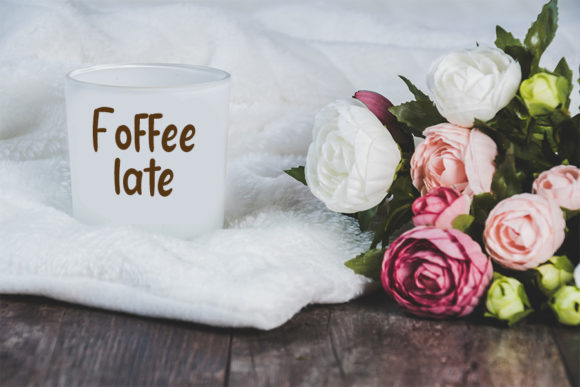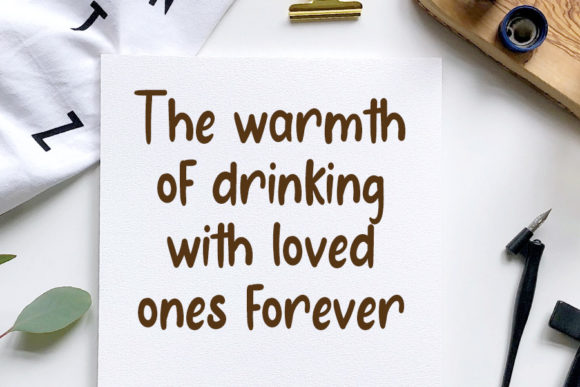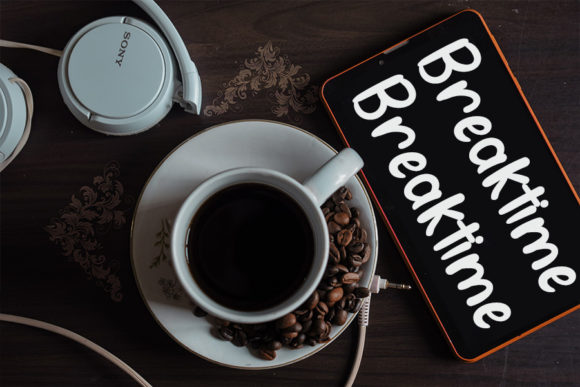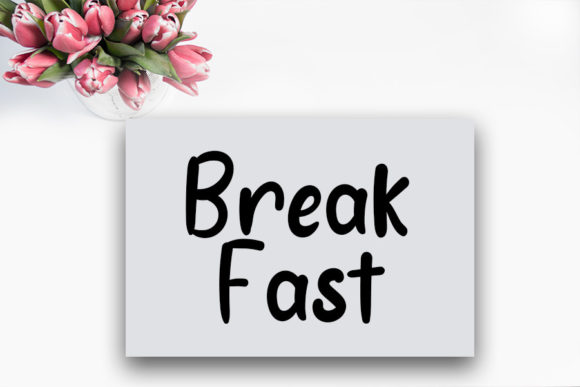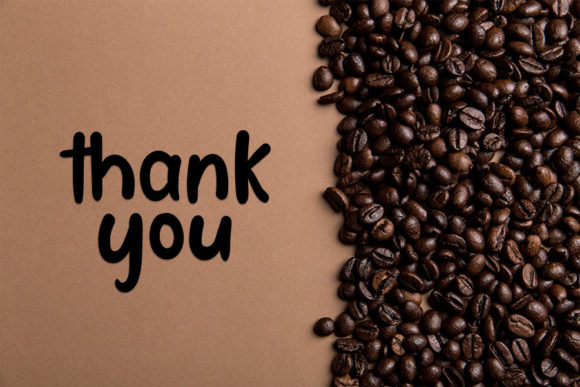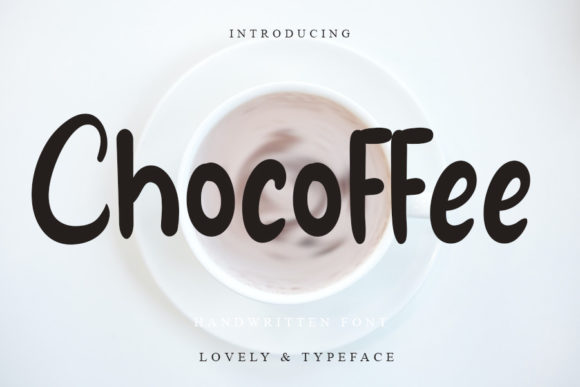
Introducing Chocoffee Font: The Sweet and Friendly Handwritten Font
Are you tired of using the same old fonts in your designs? Look no further! Chocoffee Font is here to add a touch of sweetness and friendliness to your creations. This beautiful handwritten font is perfect for designers and crafters who want to add a personal touch to their work.
A Natural and Unique Style
Chocoffee Font boasts a natural and unique style that makes it incredibly versatile. Its handwritten charm is perfect for a wide range of designs, from invitations and greeting cards to branding and packaging. The font’s organic feel and imperfections give it a human touch that will make your designs stand out from the crowd.
Endless Possibilities
The best part about Chocoffee Font is that it’s incredibly versatile. The only limit is your imagination! You can use it to create:
- Sweet and colorful invitations for parties and special occasions
- Handmade-style branding and packaging for your business
- Beautiful and unique greeting cards for friends and family
- Creative and eye-catching social media graphics
- And so much more!
Chocoffee Font is a dream come true for designers and crafters who want to add a personal touch to their work. Whether you’re a professional designer or a DIY crafter, this font is perfect for:
- Creating handmade-style designs that stand out from the crowd
- Adding a touch of personality to your branding and marketing materials
- Designing beautiful and unique stationery and invitations
- Crafting handmade cards and gifts for friends and family
Key Features of Chocoffee Font
- Handwritten font with a natural and unique style
- Perfect for a wide range of designs, from invitations to branding
- Incredibly versatile and easy to use
- Sweet and friendly tone that’s perfect for a variety of projects
Get Creative with Chocoffee Font
Tips and Tricks for Using Chocoffee Font
- Pair Chocoffee Font with other fonts to create a unique and eye-catching combination
- Use Chocoffee Font to add a personal touch to your branding and marketing materials
- Don’t be afraid to get creative and try new things – the only limit is your imagination!
Chocoffee Font is a sweet and friendly handwritten font that’s perfect for designers and crafters who want to add a personal touch to their work. With its natural and unique style, this font is incredibly versatile and easy to use. Whether you’re creating invitations, branding, or social media graphics, Chocoffee Font is the perfect choice. So why wait? Download Chocoffee Font today and get creative!